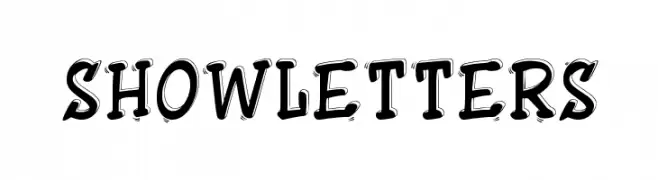
A playful, rounded font with a light and airy feel, perfect for adding personality.
A playful, rounded font with smooth curves and a whimsical style.
A playful, narrow font with rounded, whimsical letterforms.
A playful, handwritten-style font with a casual, italicized appearance.
A playful, bold font with rounded edges and a whimsical style.
A playful, rounded font with smooth curves and a friendly appearance.
A bold, rugged font with a hand-drawn, dynamic style.
A bold, italicized font with a dynamic, brush-like style.